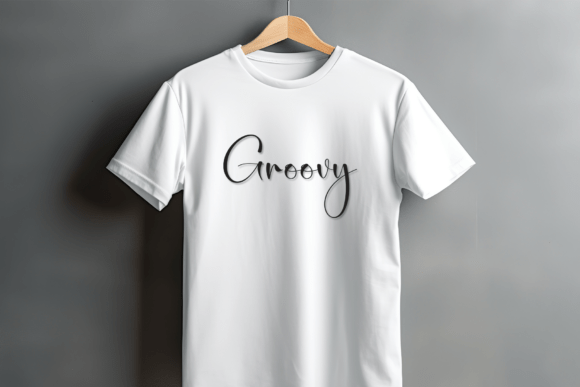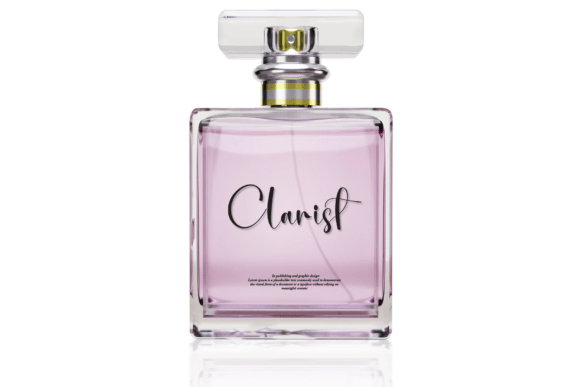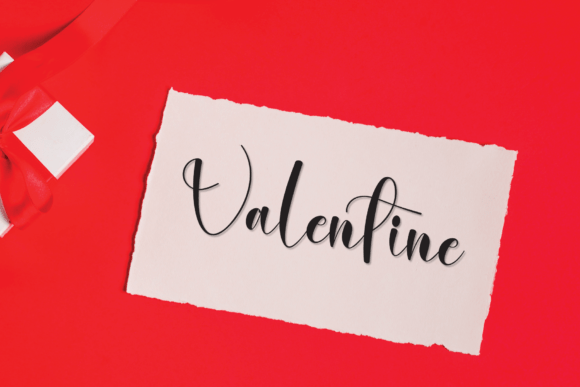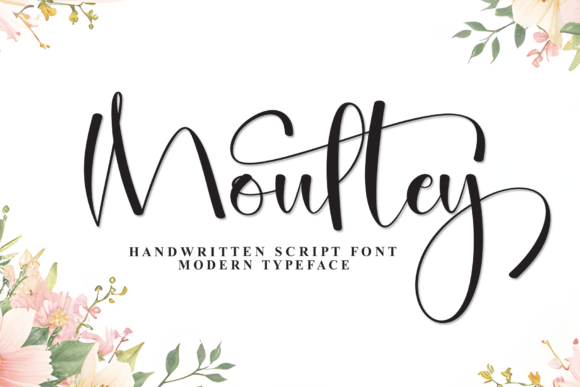
Introduction to Moutley Font
Captivate your audience with Moultay, a sophisticated handwritten script font that effortlessly blends modern flair with timeless elegance.
👤 Author Creativewhitee
Whether you are crafting bespoke wedding stationery, designing an upscale brand identity, or creating delicate social media content, Moultay offers a professional and artistic aesthetic Perfectly suited for luxury logos, boutique packaging, signature watermarks, and editorial headers.
Key Features of Moutley Font
Why Choose Moutley Font?
Moutley Font offers exceptional quality and versatility, making it a valuable addition to your design toolkit. Whether you’re creating for personal projects or commercial use, Moutley Font delivers professional results.